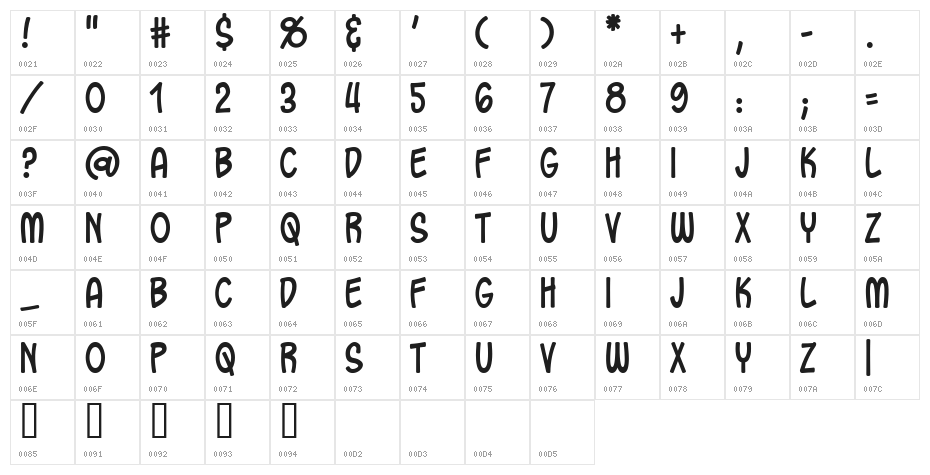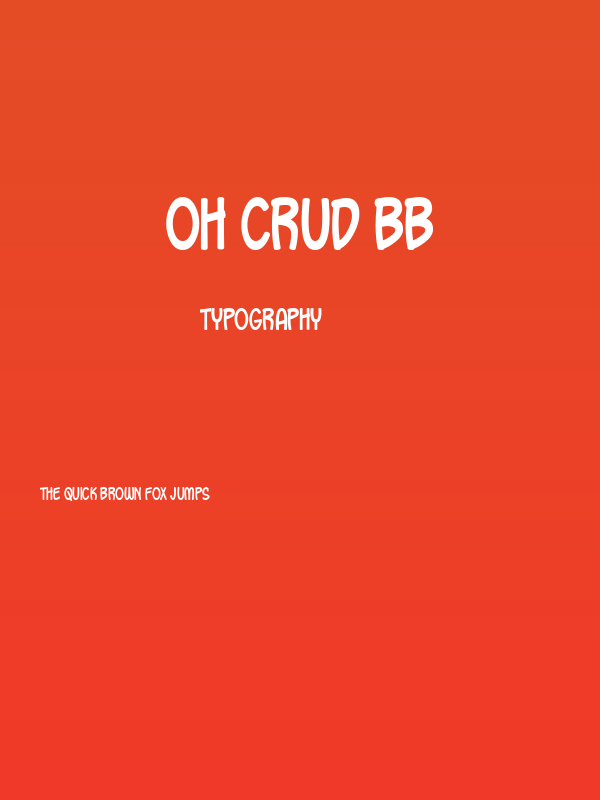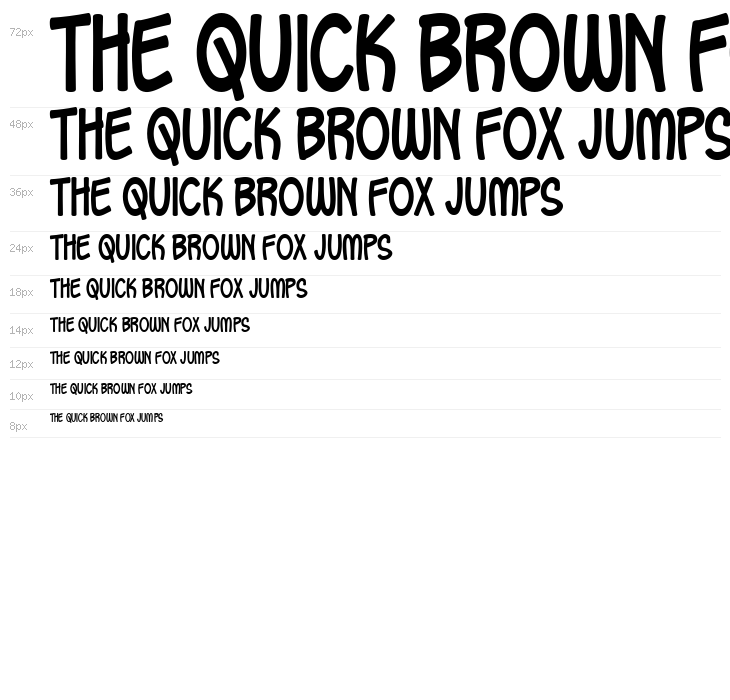
Oh Crud BB Font
Oh Crud BB Description
This font features a playful and bold design with rounded edges and a hand-drawn aesthetic. The characters are uniformly thick, giving it a consistent and cohesive look. The uppercase and lowercase letters maintain a friendly and approachable style, making it suitable for informal and creative projects. The numbers and special characters follow the same design principles, ensuring a harmonious appearance across all glyphs. Its unique style makes it stand out, perfect for projects that require a touch of whimsy and creativity.
| Overall Style | Playful, Creative |
| Proposed Projects | Ideal for children's books, comic strips, playful branding, and creative posters. |